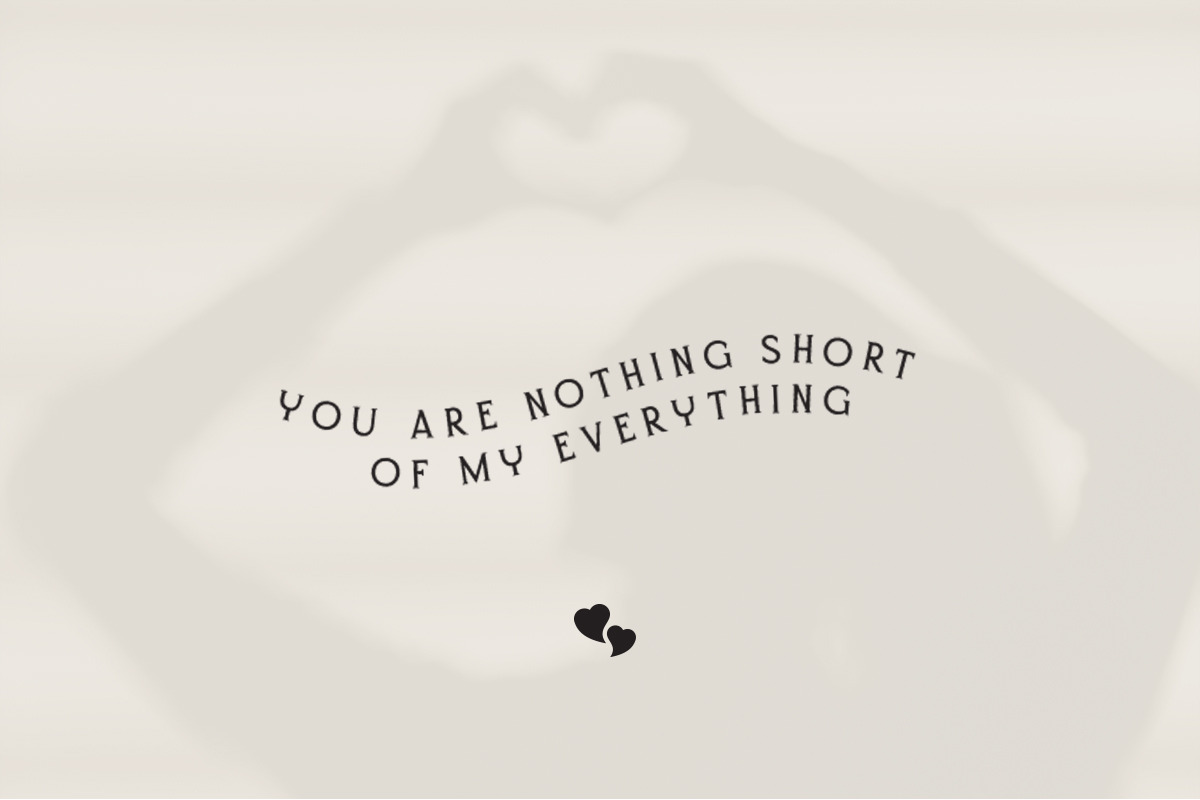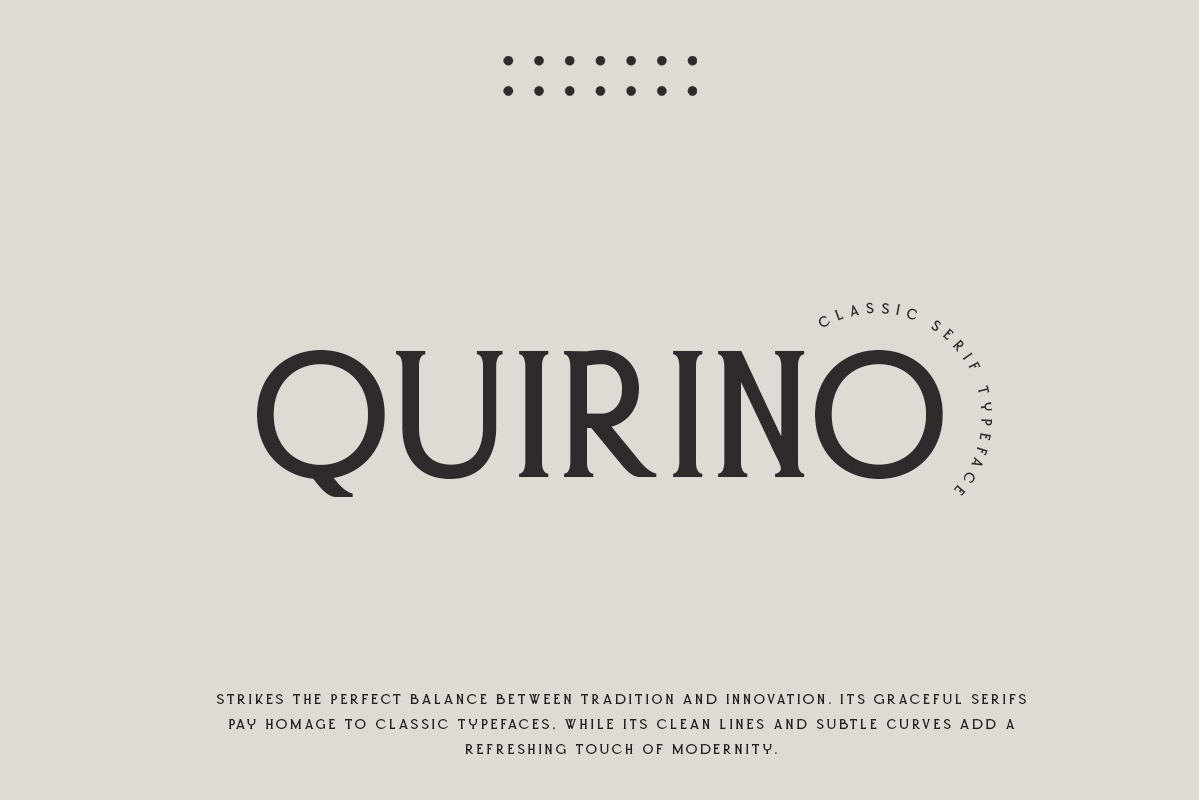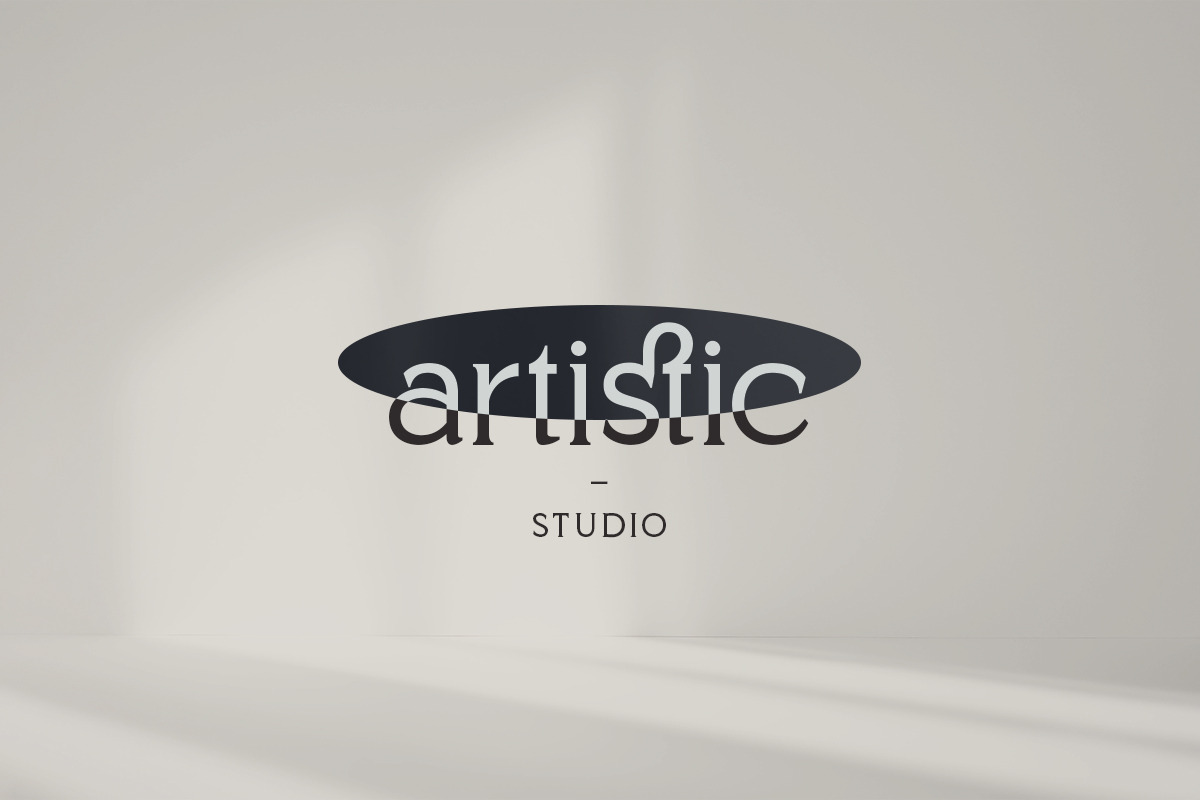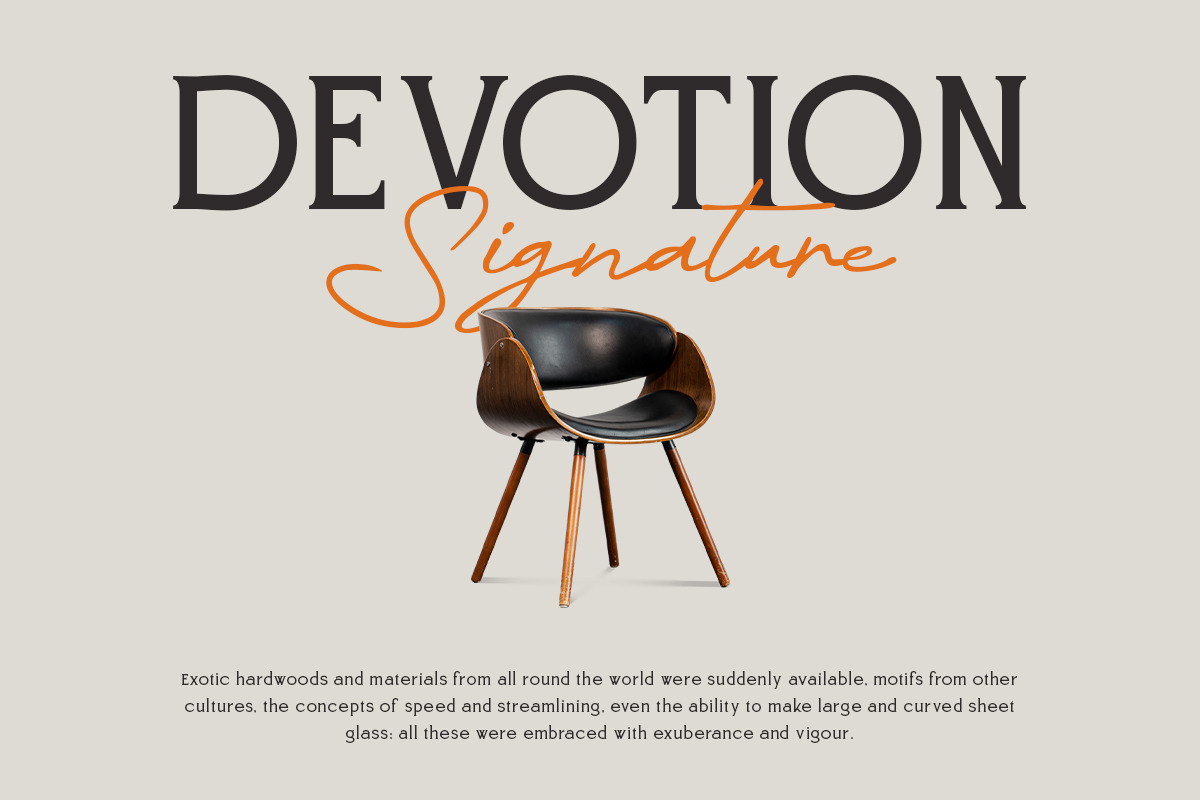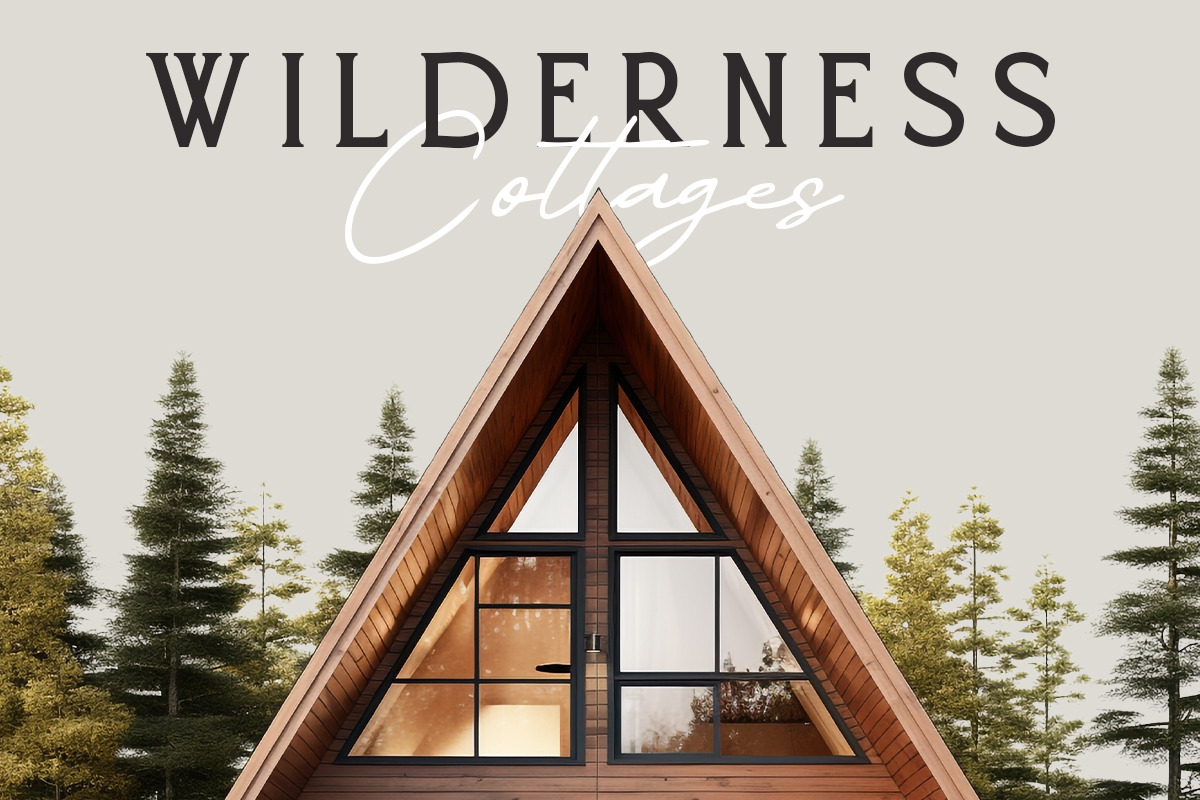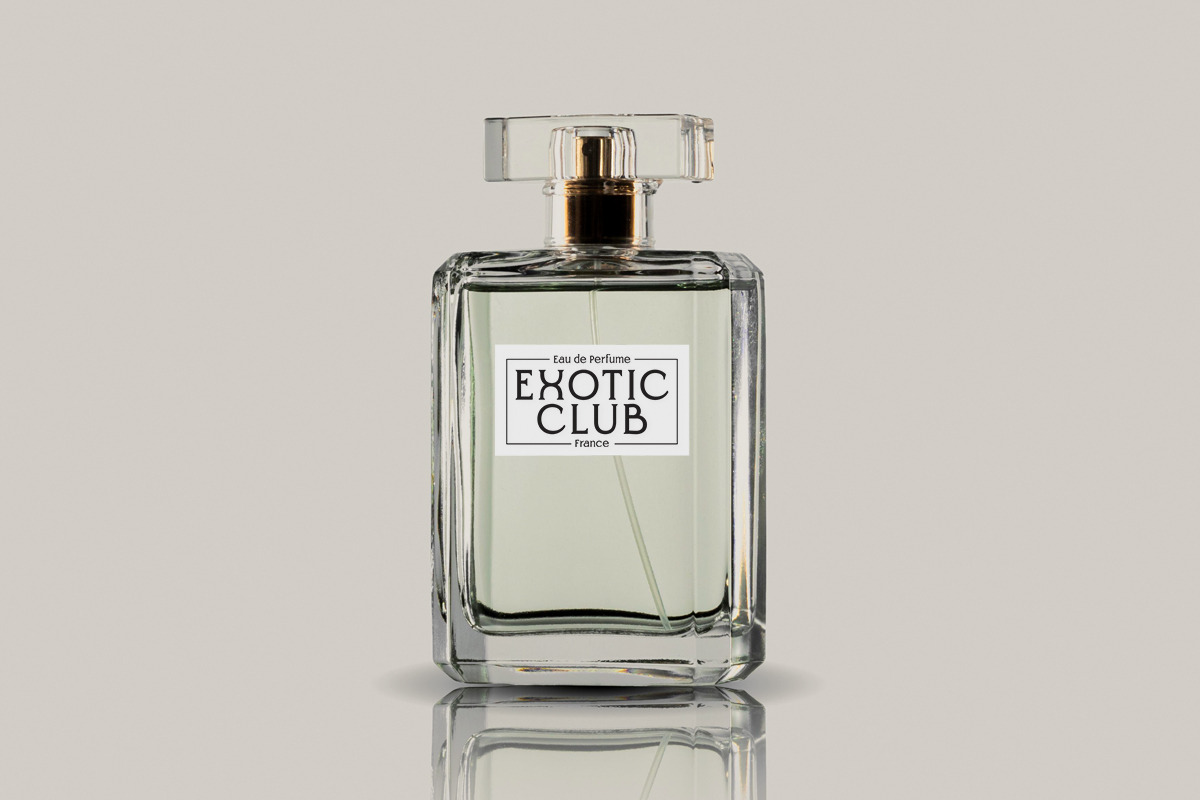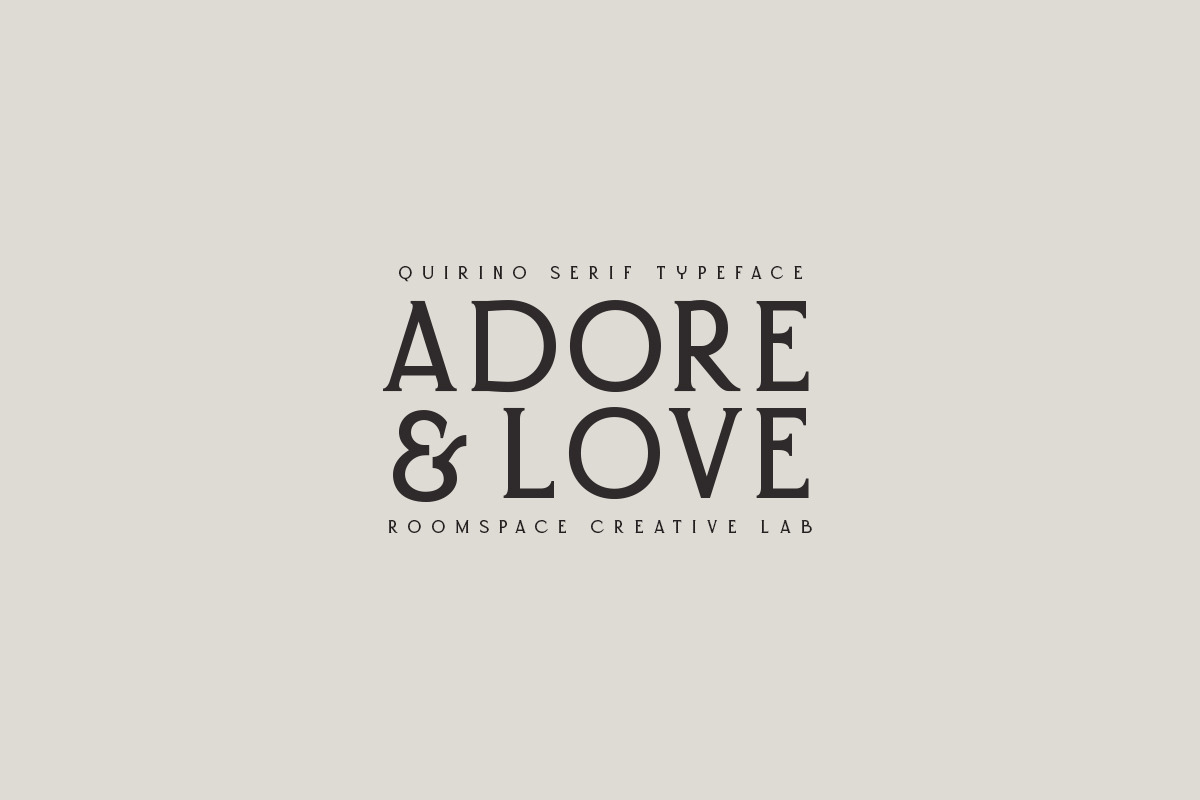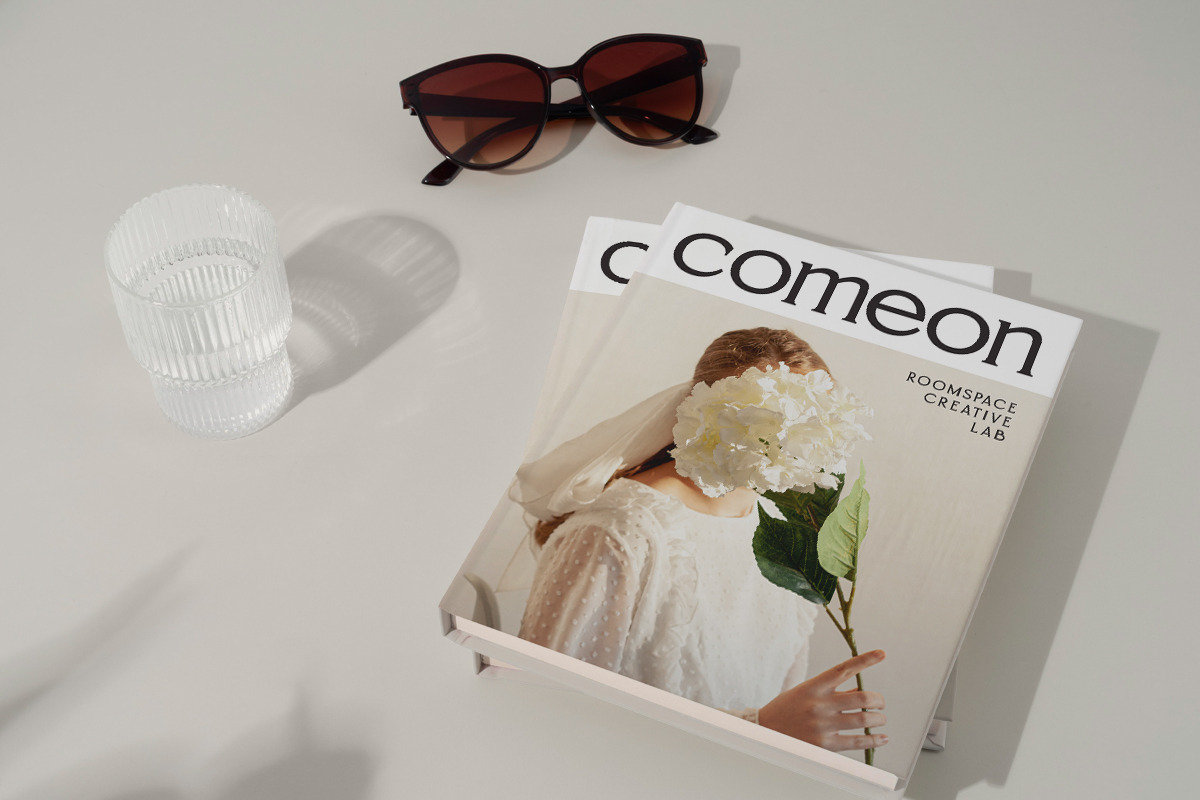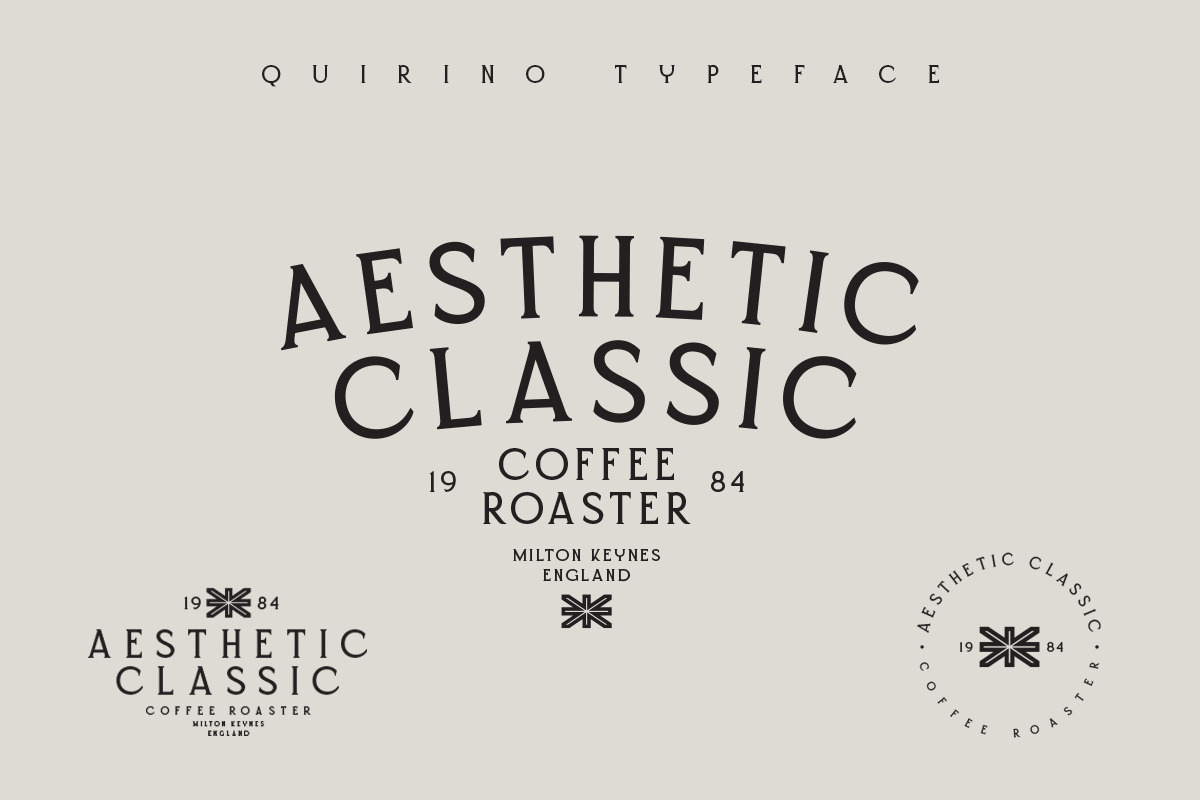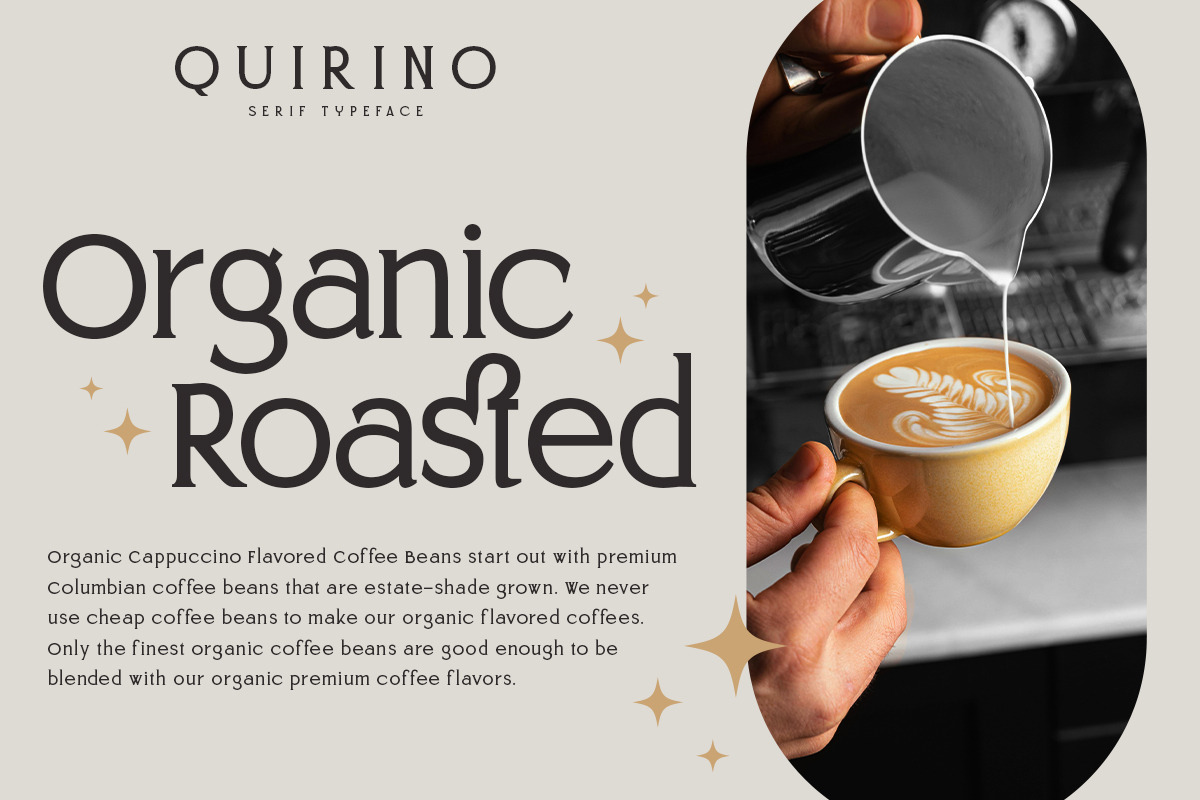
Quirino - Serif Typeface
Quirino Serif – where timeless elegance intertwines with modern sophistication. This classic serif font is meticulously crafted to exude a clean and refined aesthetic, perfectly balancing tradition and contemporary style.
Quirino embodies the essence of classical serif fonts while embracing a modern touch, resulting in an elegant and versatile design. Its clean lines and precise curves give it a sense of clarity and sophistication, making it ideal for a wide range of design projects.
With its seamless blend of classic charm and modern appeal, Quirino is the perfect choice for those seeking a font that stands out with understated elegance. Quirino elevates your text with its timeless yet fresh look, whether used for branding, editorial design, web content, or any other creative endeavour.